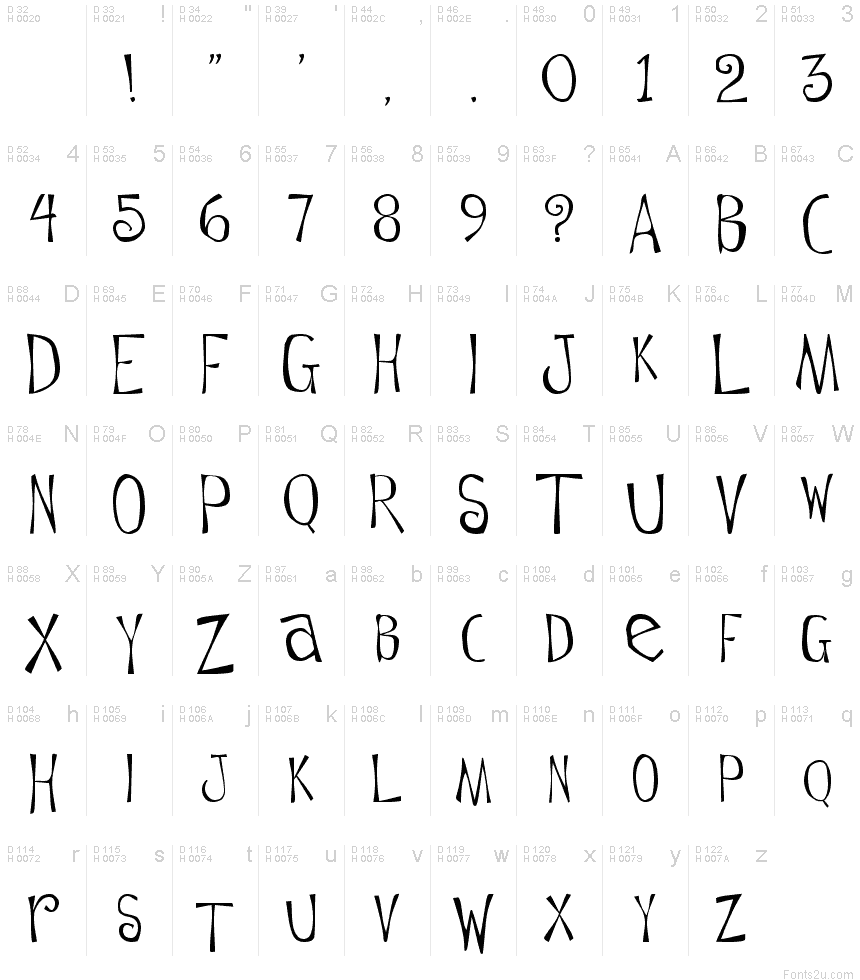
Flowerchild Plain
Flowerchild Plain font is a free comic display typeface with a loose, hand-drawn vibe. The tall, lanky letters sway slightly, with inky strokes that feel like they were brushed onto a poster board rather than plotted on a grid. It carries a carefree, boho energy that fits right in with the rest of the Flowerchild family, but this style keeps things clean and readable while still feeling wildly human.
Using Flowerchild Plain, you can bring a playful edge to children’s book covers, zines, event flyers, handmade product packaging, social graphics, classroom materials, and greeting cards. The irregular rhythm gives headlines a spontaneous, doodled charm, while still holding together in short paragraphs or taglines. This free font shines at larger sizes; pair it with a simple rounded sans for body text to keep the layout balanced and easy to scan.